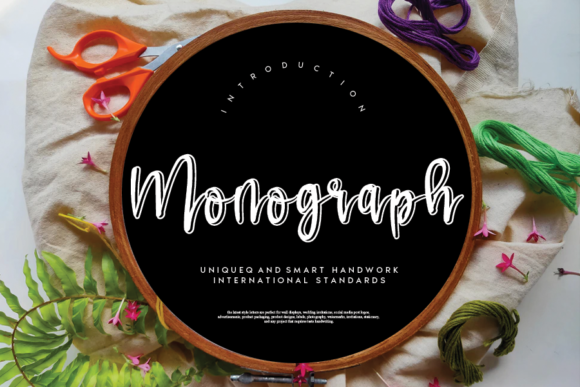
Monograph Font Review: Elevating Campaign Visuals
I was staring at a blank canvas in Figma last Tuesday, tasked with designing the hero image for a boutique skincare launch. The brief demanded "effortless luxury," but every typeface I tested felt either too rigid or overly chaotic. That is when I loaded Monograph, a flowing handwritten font that immediately shifted the mood of the entire artboard. As a marketing designer constantly balancing aesthetic appeal with conversion goals, finding Fonts that bridge the gap between artistic expression and commercial clarity is rare. Monograph is described by an elegant touch, perfect for your favorite projects, and in this specific campaign workflow, it provided the distinct personality we needed without sacrificing legibility on mobile screens.
Monograph for Luxury Product Launches and Editorial Headers
When integrating Monograph into high-end product campaigns, the Script Handwritten style serves as a powerful visual hook that generic serif fonts simply cannot replicate. During our skincare launch, I used this typeface exclusively for the primary headline and emotional taglines, reserving clean sans serifs for the technical ingredients list. The result was a visual hierarchy that guided the viewer’s eye naturally from the emotional promise to the rational details. Because Monograph possesses an incredibly distinct and timeless style, it anchored the brand identity effectively across multiple assets. It did not look like a temporary trend; it looked like established heritage.
In practical application, this font excels when you need to create spectacular focal points without overwhelming the composition. For the landing page header, I utilized the flowing connections to suggest movement and fluidity, mirroring the texture of the serum itself. However, a crucial strategic note for marketers: avoid using this specific handwritten font for body copy or dense product descriptions. Its intricate ligatures and varying baseline shifts are designed for display purposes. When I tested it at 14px for paragraph text, readability dropped significantly. Keep Monograph large, bold, and purposeful to maintain that premium editorial feel that drives higher perceived value.
Optimizing Monograph Typography for Instagram Reels and Pinterest Pins
Social media strategists know that stopping the scroll requires immediate visual recognition, and Monograph performs exceptionally well in vertical video covers and static pin designs. While testing assets for an Instagram content series, I found that the font’s organic curves created a necessary contrast against the sharp, rectangular interface of the app. Unlike standard Fonts that can disappear against busy photography, Monograph holds its own even when overlaid on textured backgrounds. I specifically used it for quote graphics and "Save for Later" educational carousels, where the personal tone of a Script Handwritten typeface increases engagement rates by making branded content feel like a recommendation from a friend rather than a corporate advertisement.
For Pinterest campaigns, where users are often in a discovery mindset, Monograph helps establish a cohesive aesthetic board. I created a template system where the font was locked in for all title overlays, ensuring brand consistency across twenty different pins. The key to success here is negative space. Because the letterforms are expressive, they need room to breathe. Crowding Monograph against the edges of a 1080x1920 canvas diminishes its elegance. On mobile previews, ensure the ascenders and descenders do not get cropped by UI elements like the caption overlay or navigation bars. This attention to safe zones ensures your carefully crafted typography remains fully visible and impactful in the feed.
Pairing Monograph with Sans Serif Fonts for Digital Ad Clarity
A common pitfall in campaign design is letting a beautiful display font compromise message clarity, which is why pairing Monograph with a structured counterpart is non-negotiable for performance marketing. In our digital ad sets, I paired this flowing handwritten font with a geometric sans serif like Montserrat or Inter. The contrast between the organic, humanist strokes of Monograph and the mathematical precision of the supporting typeface creates a professional tension that feels both modern and trustworthy. This combination is particularly effective for webinar banners and online course launches, where you must convey creativity alongside competence.
From a buyer intent perspective, this pairing strategy signals quality. When potential customers see Script Handwritten typography balanced with clean information architecture, they subconsciously associate the brand with thoughtful design. I avoided pairing Monograph with other decorative or serif fonts, as this created visual competition that confused the reading path. Stick to one star player. Use Monograph for the "Want" (the emotional headline) and the sans serif for the "What" (the offer details, dates, and CTA buttons). This clear division of labor ensures that while the audience falls in love with the distinct style, they still clearly understand the value proposition and next steps.
Beyond legality, consider the technical file formats included. For web-based campaigns, having WOFF2 files is essential for fast loading times, especially when using Monograph in above-the-fold hero sections. If the font package includes OpenType features like alternate characters or swashes, utilize them to customize logos and prevent repetitive letterforms in longer headlines. These subtle variations add a bespoke quality that elevates the final output. However, always test these alternates across different browsers and devices. What looks stunning in your design software might render inconsistently on older Android devices or specific email clients. A thorough QA process ensures that the timeless style you fell in love with translates perfectly to every touchpoint in your marketing funnel.
Ultimately, Monograph is more than just a pretty face; it is a strategic asset for marketers who understand that typography influences perception. Whether you are building a seasonal sale graphic, refining a YouTube thumbnail set, or establishing a new brand voice, this typeface offers a unique blend of warmth and sophistication. By respecting its limitations regarding readability and pairing it intentionally with supportive typography, you can leverage its elegant touch to create campaigns that are not only visually spectacular but also commercially effective. It transforms standard promotional material into something that feels curated and personal, which is exactly what today’s audiences crave in a sea of automated content.